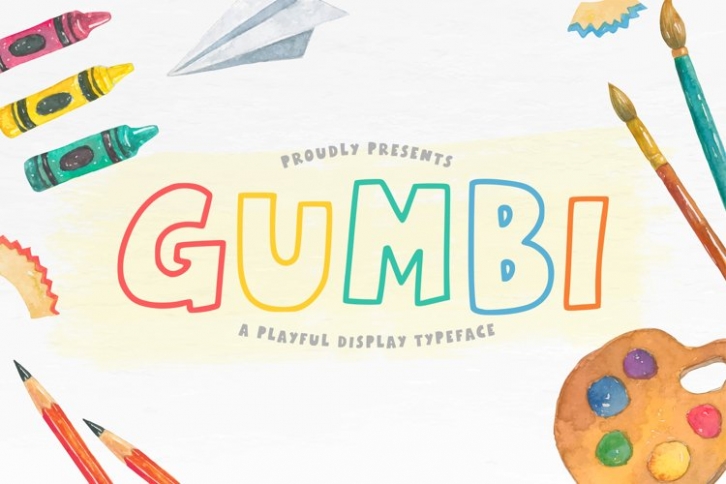
Gumbi is a beautiful font that was designed by plusstore. It's a great choice for designers and creatives who need such a font. It was released on August 25, 2022 and the file size is 12.97 MB. Gumbi may give a more youthful, expressive and casual look to your project. It is a very beautiful, refined, elegant, and high-quality font.